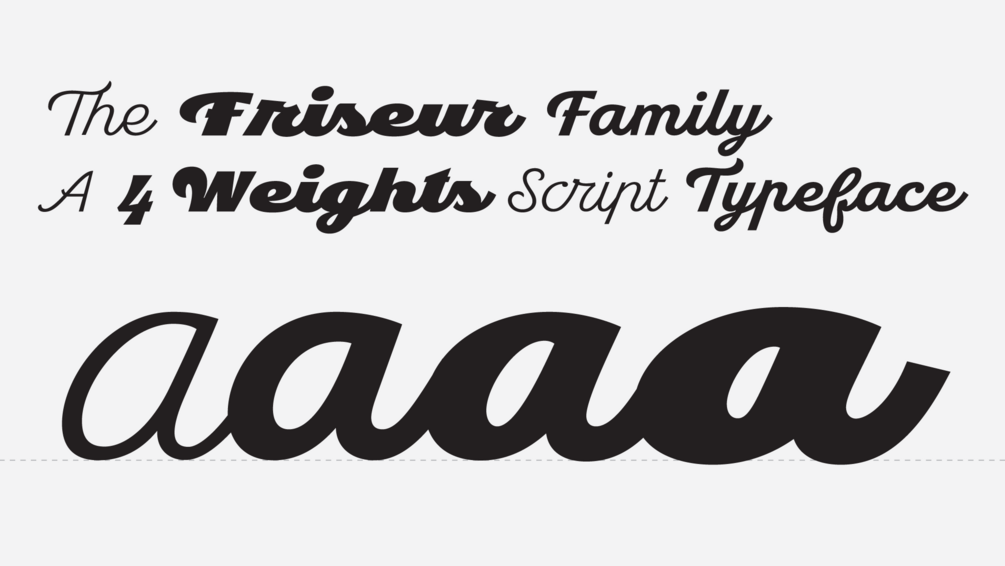
Friseur Script
Friseur is a 4 weights script typeface. This font is based on the 18th-century English roundhands. It has open type features, with swashy alternates for the uppercase, it's great for logos and editorial work.